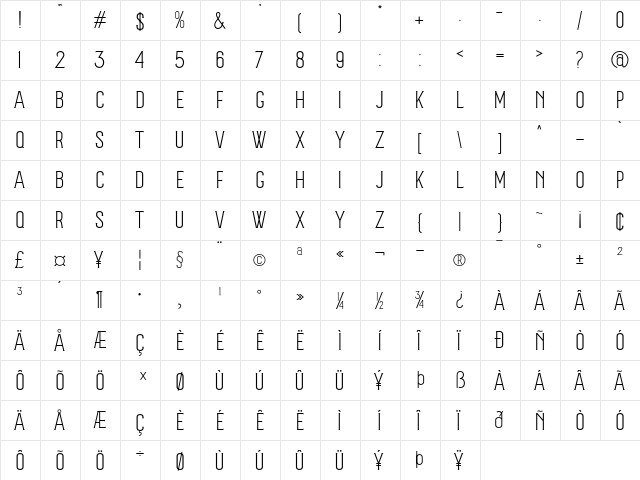
AT Askara Regular
| Foundry | Amera Type |
| Designer | Cahyadi & Ikhsan |
Design Context for AT Askara Typeface
AT Askara takes a measured approach to typography — its balanced proportions and neutral character make it a reliable workhorse for both digital and print work.